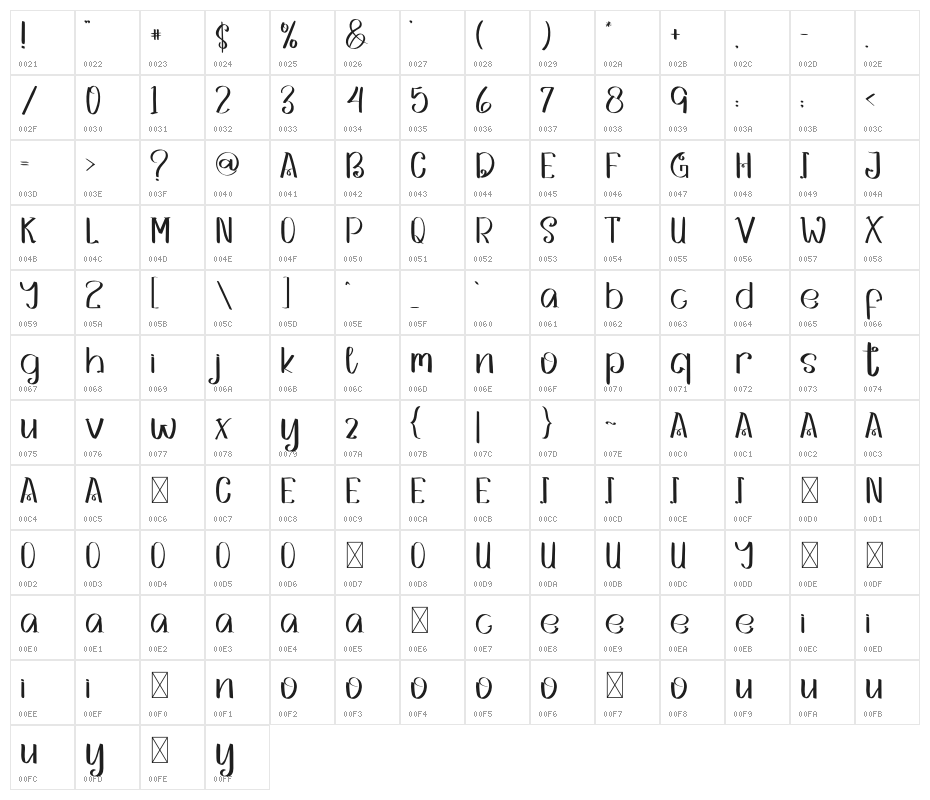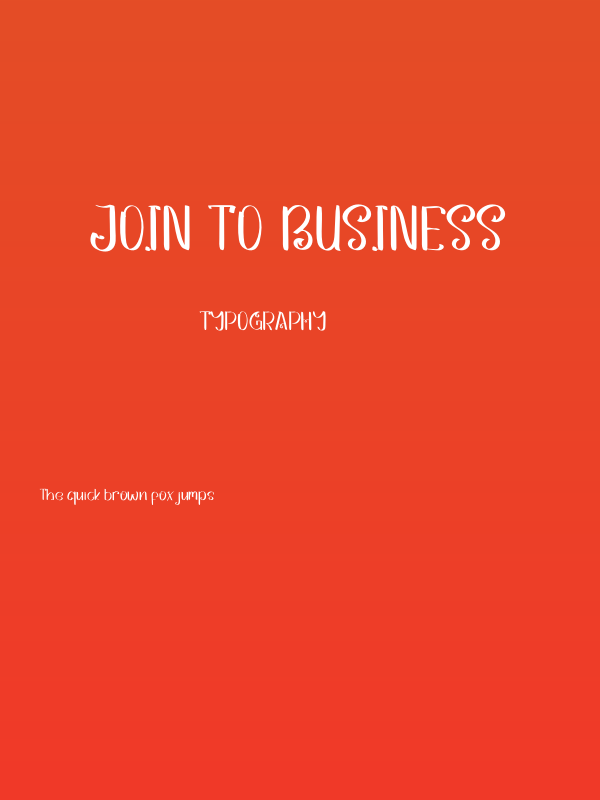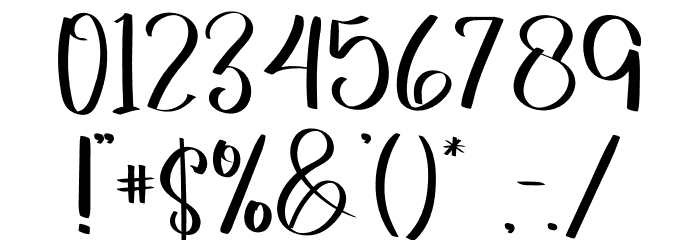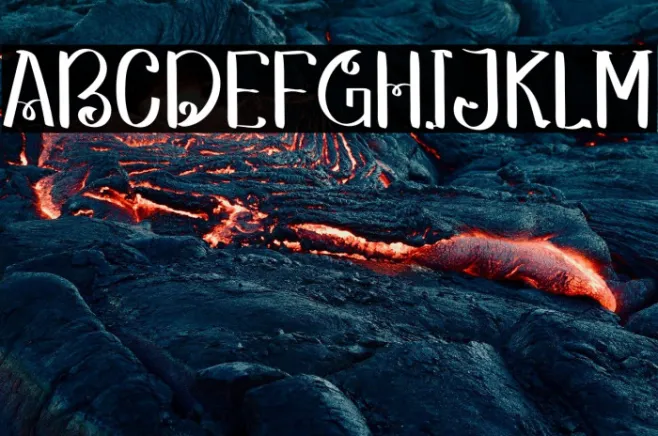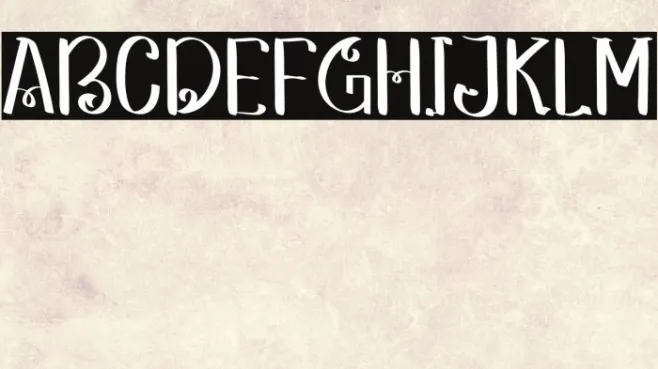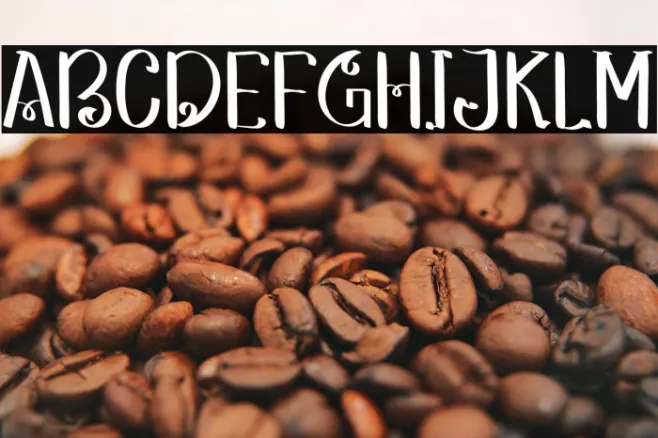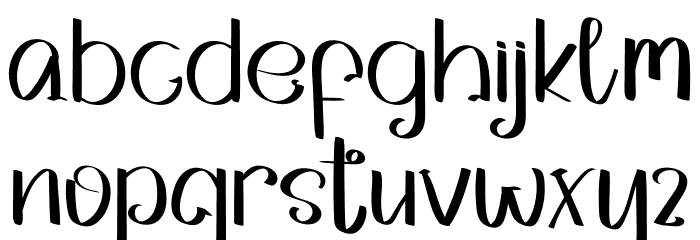
JOIN TO BUSINESS Font
JOIN TO BUSINESS Description
This font features a playful and whimsical design with a handwritten style. The letters are characterized by their unique, flowing curves and occasional decorative elements, such as swirls and dots. The uppercase letters are bold and prominent, while the lowercase letters maintain a consistent style with a slightly more delicate appearance. Numbers and special characters follow the same playful aesthetic, making the font versatile for various creative applications. The overall look is both modern and artistic, suitable for projects that require a touch of personality and flair.